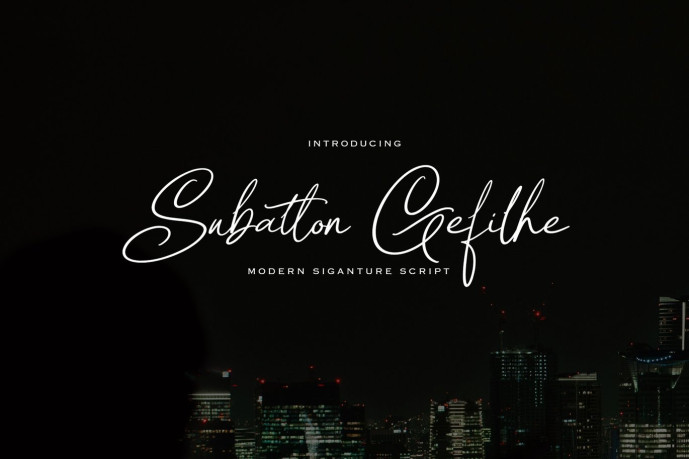
Subathon Gefile Font
Subathon Gefile is a modern signature script font crafted with elegant, flowing strokes and a natural handwritten feel. Perfect for logos, branding, invitations, packaging, and social media, it adds a sophisticated, personal touch to any design while maintaining excellent readability and timeless style. files included: OTF, TTF.